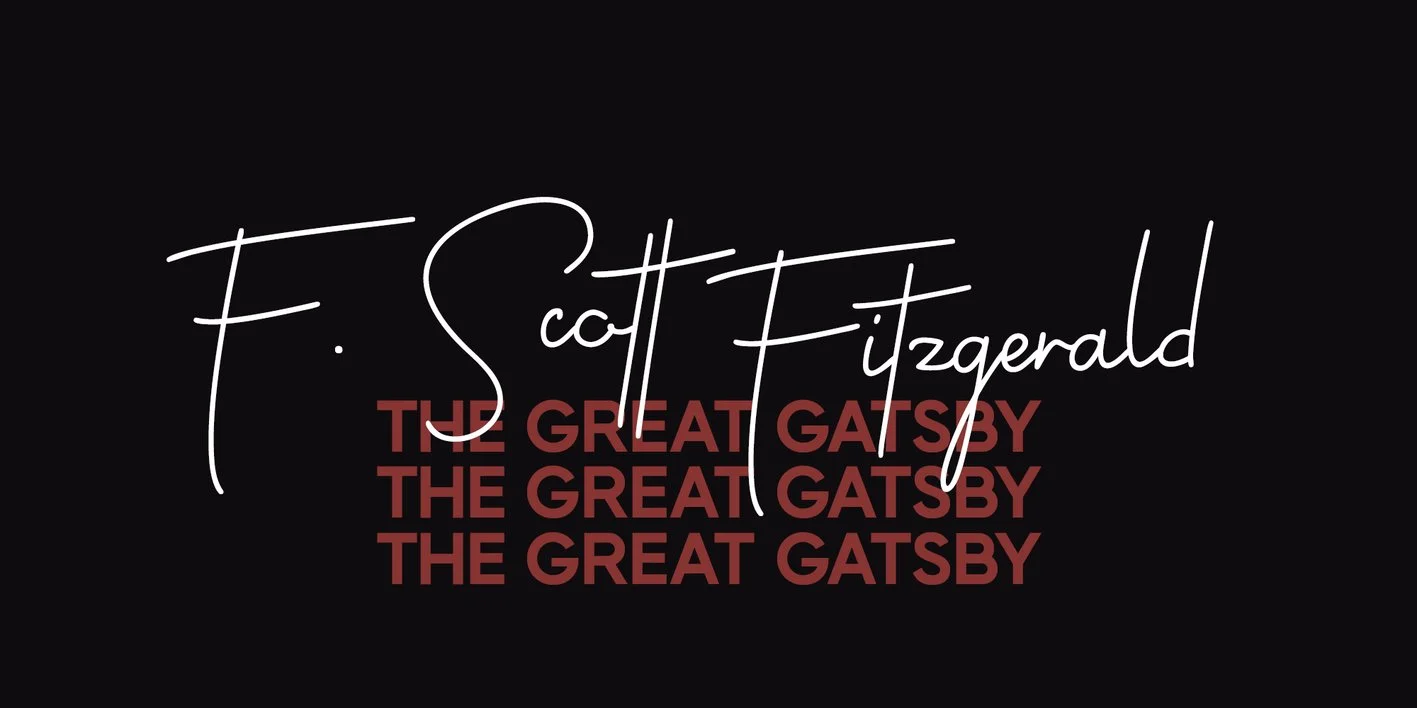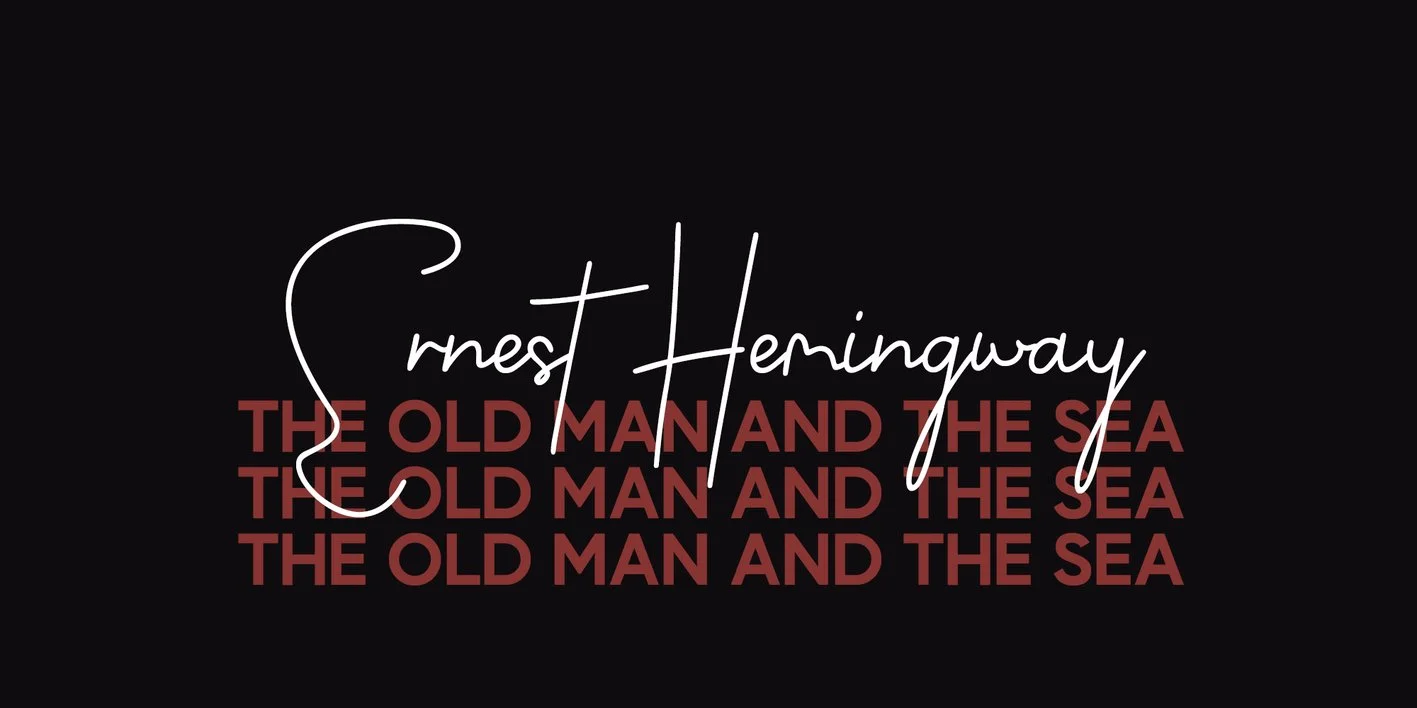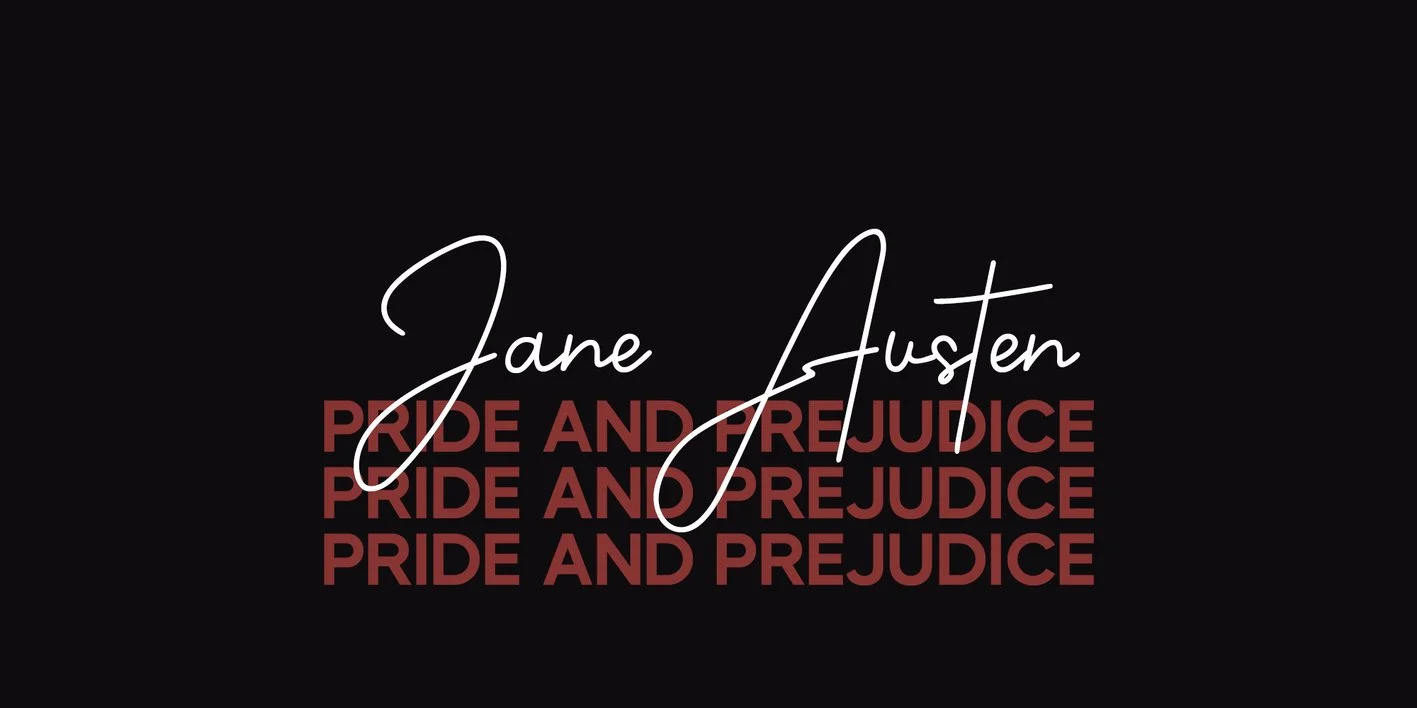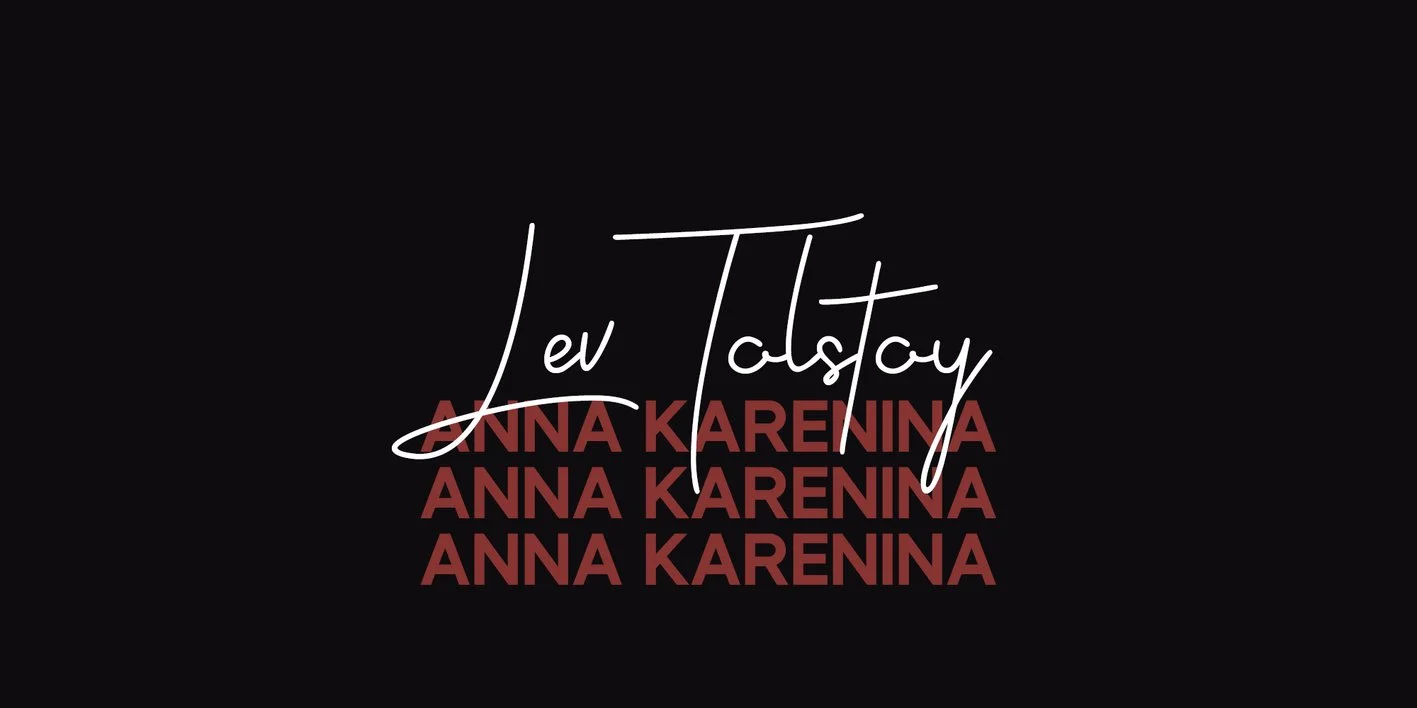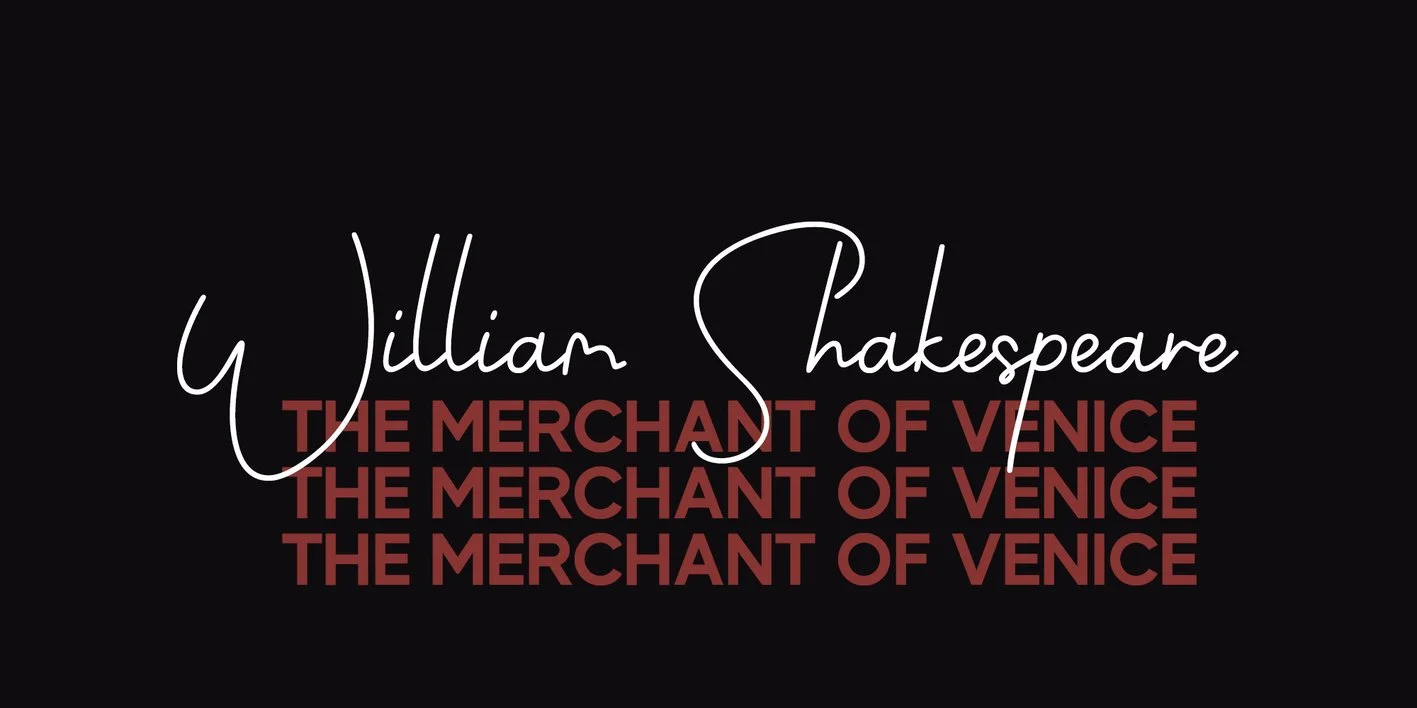
Writer Autograph Font
A good typeface communicates tone before a single word is read. Writer Autograph achieves this through strong typographic hierarchy support. The typeface brings an elegant, calligraphic sensibility to a broad range of creative disciplines, with versatility across print and screen contexts that holds up whether the work is print-first or screen-first.
In practice, Writer Autograph proves particularly effective for web design, wedding invitations, greeting cards, luxury stationery, fragrance labels. Designers reaching for it find that the type decisions feel resolved rather than laboured — a useful quality when client timelines are tight.
Ascenders and descenders are drawn with generous extents that give the script its characteristic rhythm. Ligature pairs have been individually tested to prevent collisions, and the baseline is slightly bounced to suggest a natural, unhurried hand.
The range of applications extends to product labels, beauty packaging, signage systems, environmental graphics. That breadth is deliberate: the proportions and spacing were stress-tested across a wide range of mock briefs before the typeface was finalised.
Art directors commissioning type-led campaigns find Writer Autograph a reliable choice for projects that demand both personality and restraint. The design avoids the self-conscious quirkiness that dates quickly, settling instead for considered distinctiveness that holds up over time.